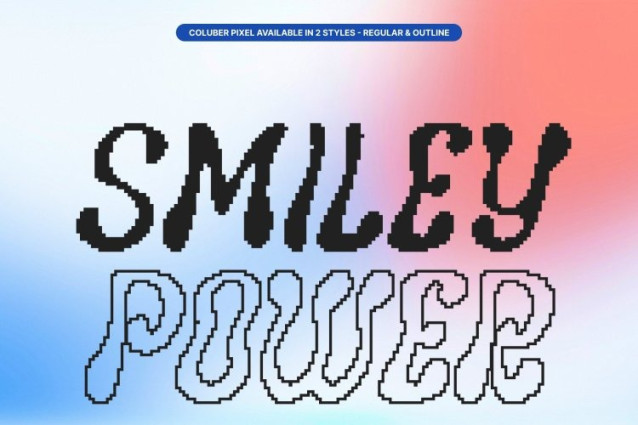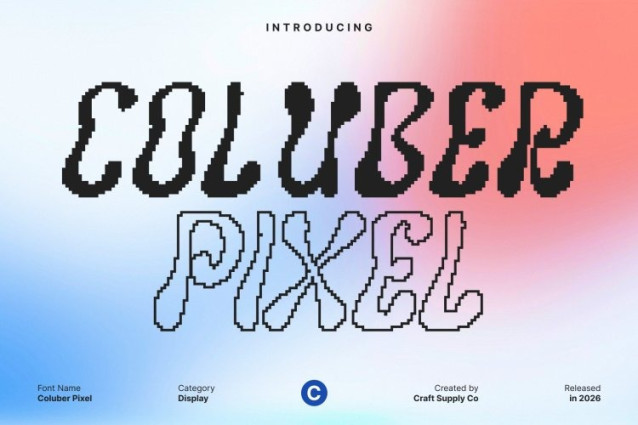
Coluber Pixel Font
Coluber Pixel Font This is a display font that fuses trippy, psychedelic visuals with a bold pixel construction. Inspired by experimental art, retro digital graphics, and funky 8-bit aesthetics, this font delivers a vibrant and unconventional personality. Its pixel-based forms give it an old-school digital feel, while the warped and playful shapes create a surreal, mind-bending impression that instantly captures attention.
Expressive, Funky, and Full of Character
Designed to break the rules of conventional typography, this font is highly expressive and energetic. The funky letterforms feel alive and dynamic, making every word visually engaging. Its trippy style injects joy, movement, and creativity into your designs, perfect for projects that demand originality and a fearless visual voice.
Perfect for Creative and Experimental Projects
This font shines in music posters, festival artwork, album covers, experimental branding, and bold editorial graphics. Its psychedelic pixel look makes it ideal for designs that celebrate freedom, imagination, and artistic expression, helping your message stand out in crowded visual spaces.
High Visual Impact Across Media
Whether used in print or digital formats, this font delivers strong visual impact and memorability. The combination of retro pixel charm and trippy aesthetics creates an eye-catching display font that feels nostalgic, modern, and wildly creative perfect for designers looking to unleash bold, unconventional ideas.